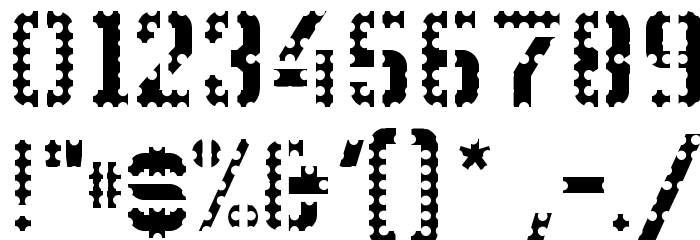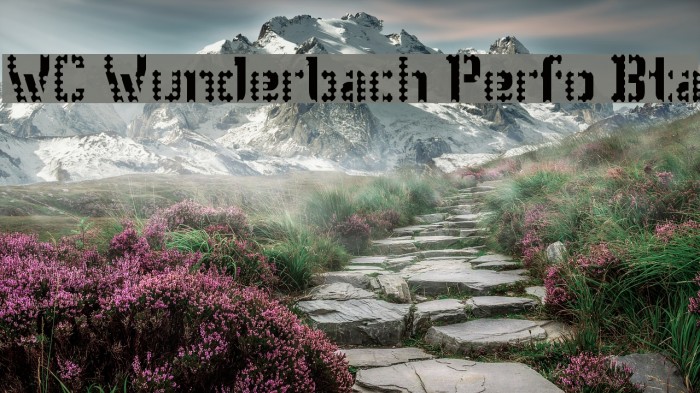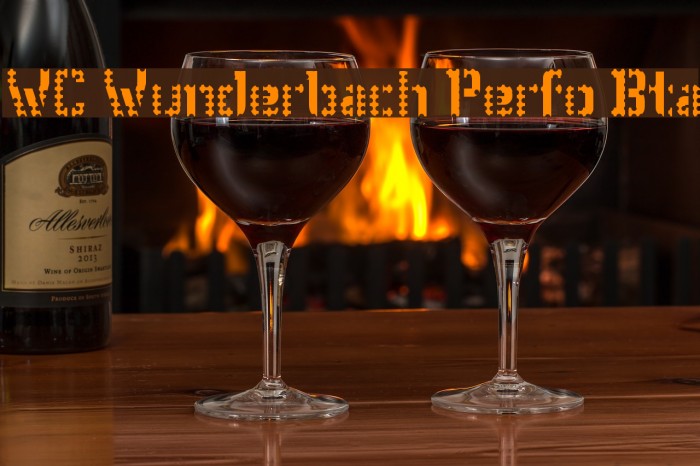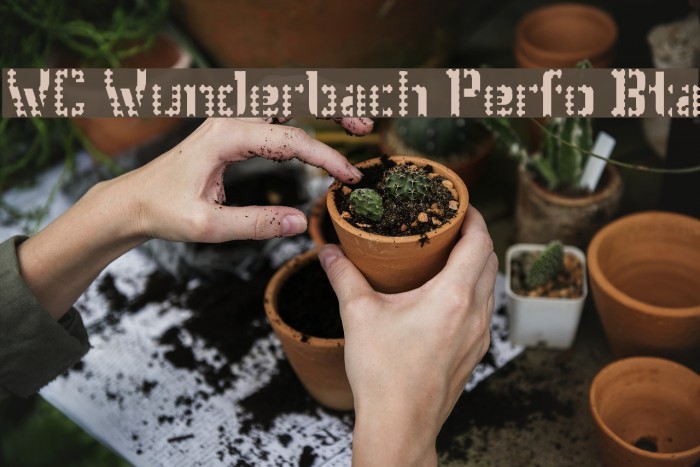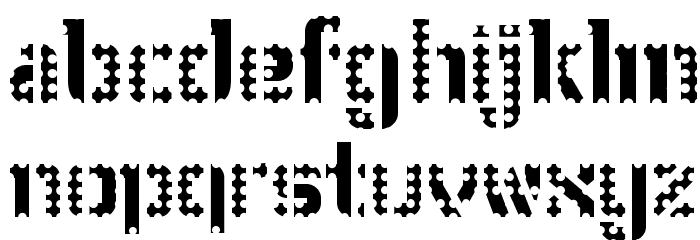
WC Wunderbach Perfo Bta Font
This font features a unique, perforated design that gives each character a distinct, industrial feel. The letters are bold and heavily stylized, with a pattern of circular cutouts that create a striking visual effect. This design choice makes the font stand out, offering a modern twist on traditional letterforms. The uppercase and lowercase letters maintain consistent styling, while the numbers and special characters follow the same perforated theme, ensuring uniformity across all glyphs. The font's boldness and decorative elements make it ideal for eye-catching designs.
A bold, perforated font with an industrial, modern aesthetic.
• Proposed Projects: Ideal for branding, posters, and any design project that requires a bold, industrial look.